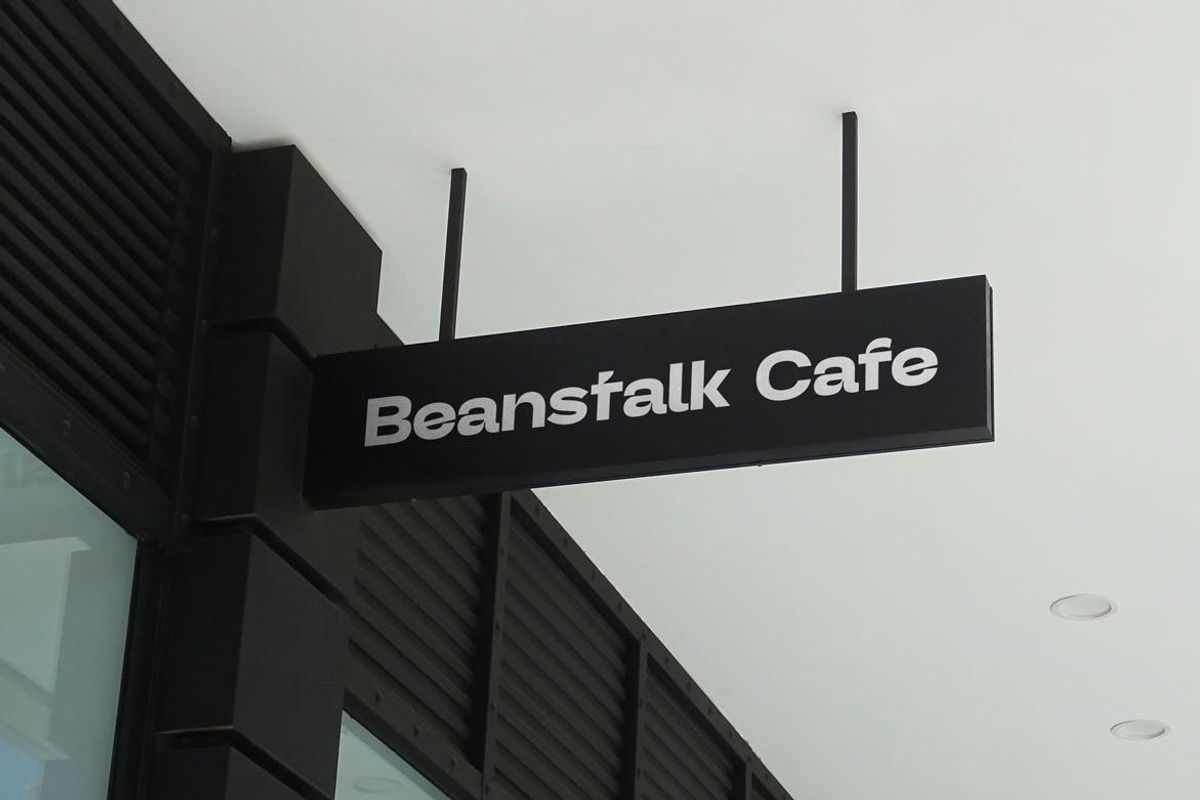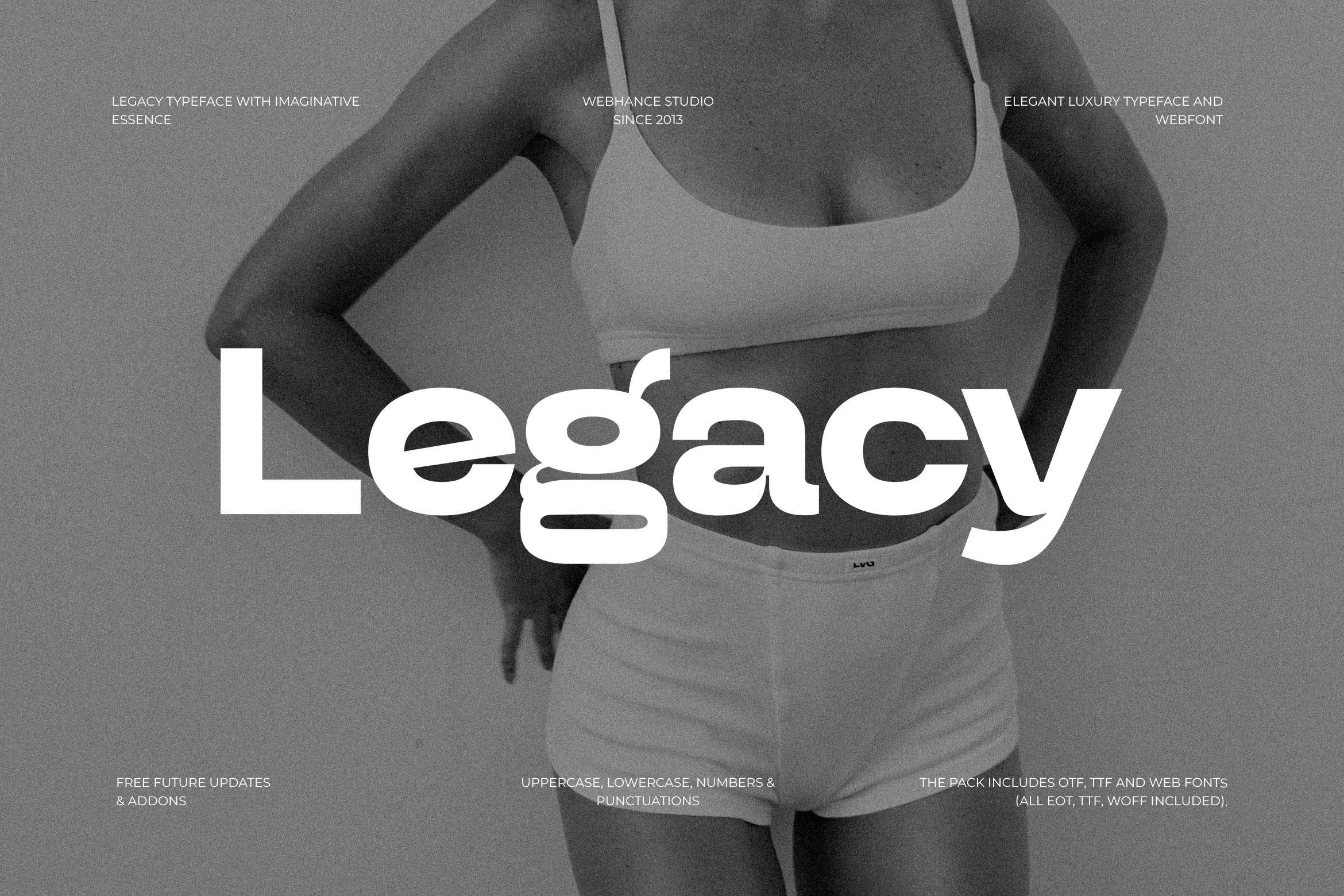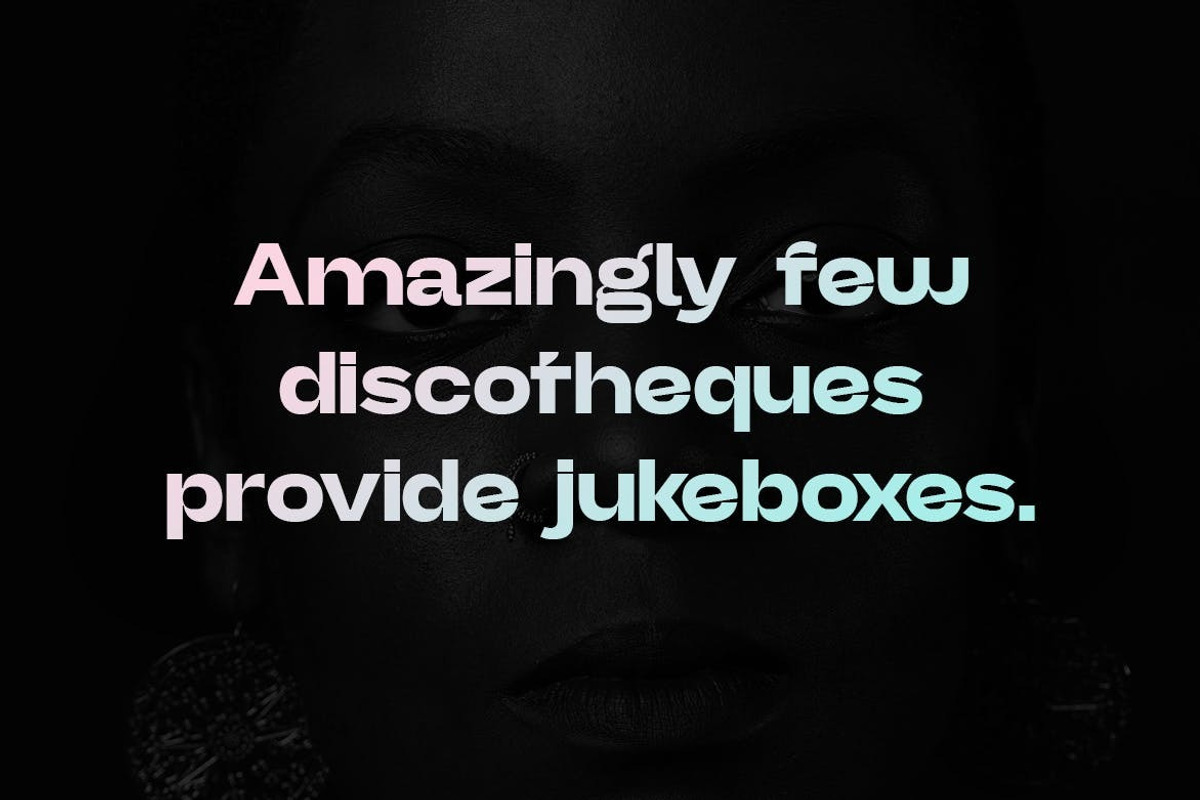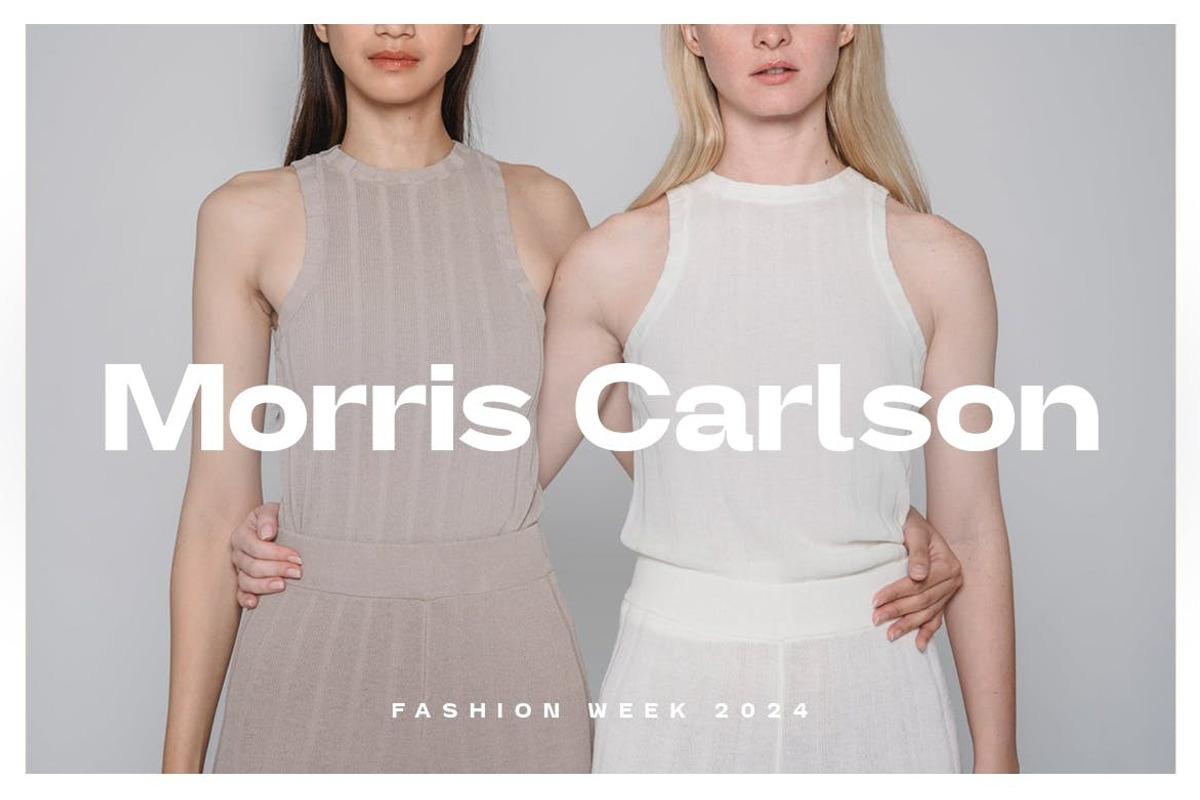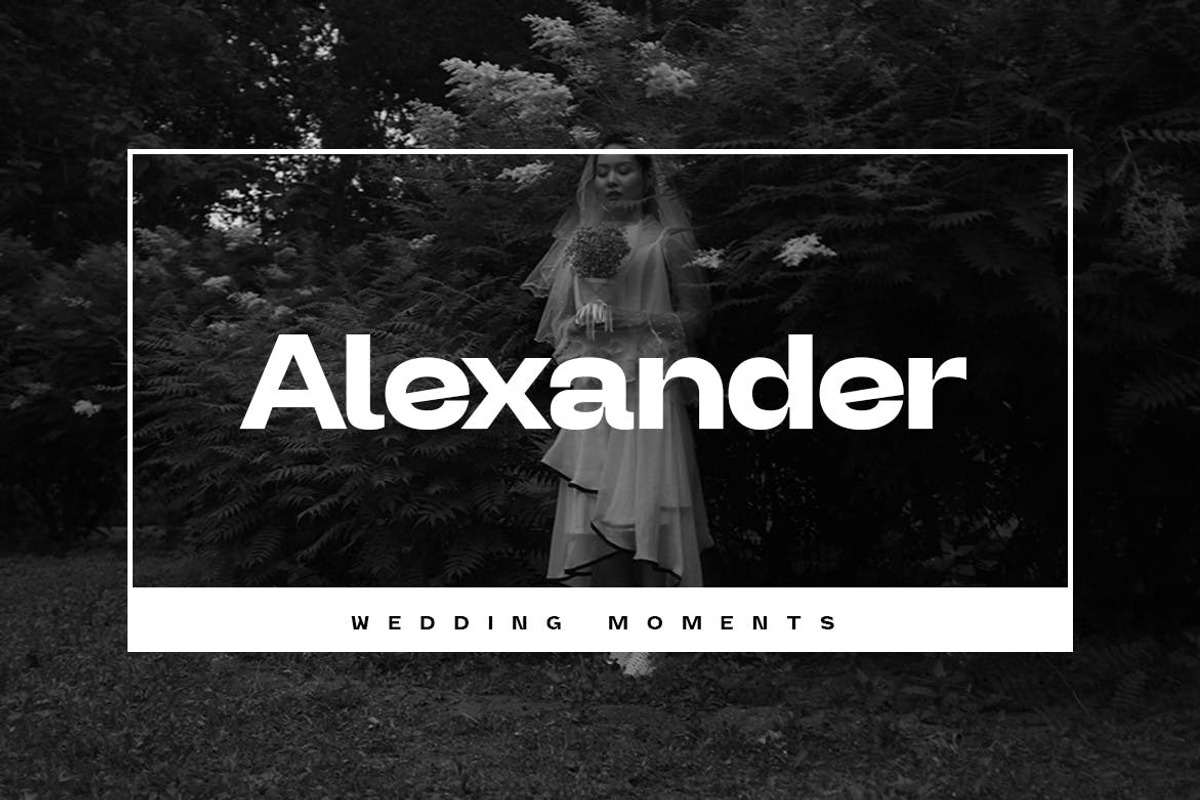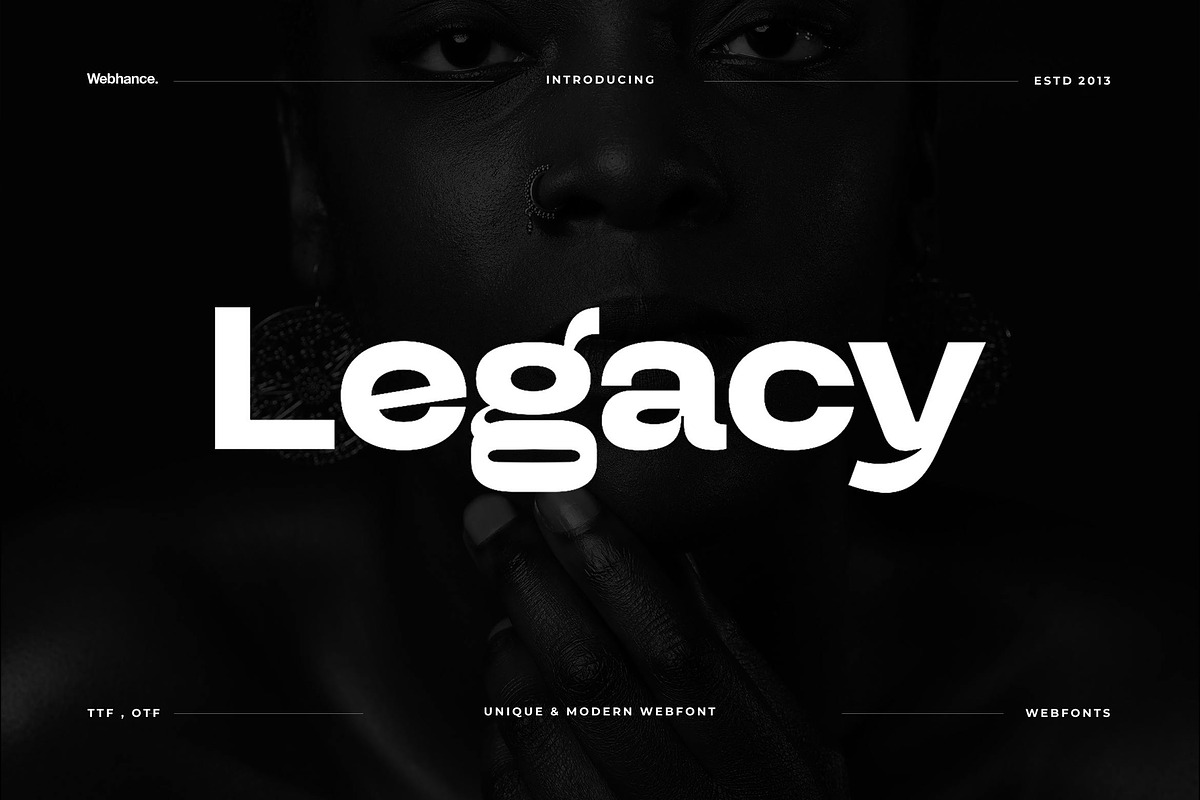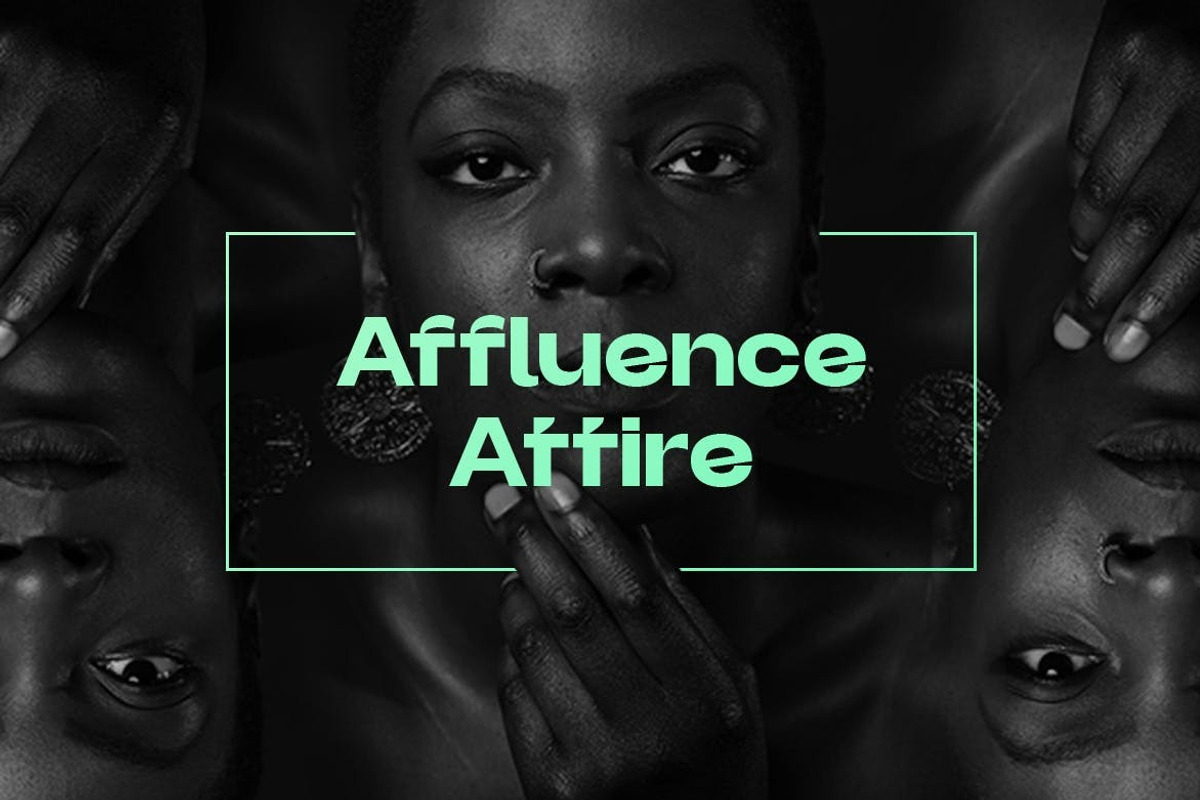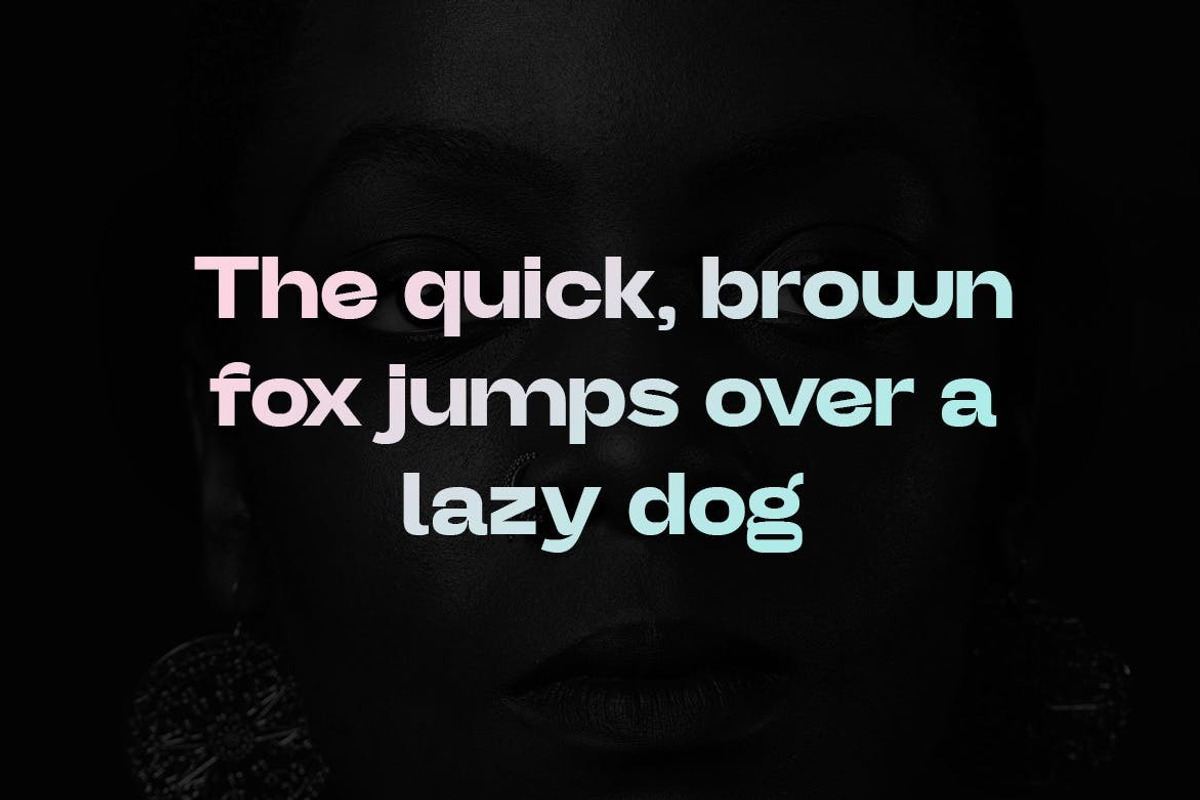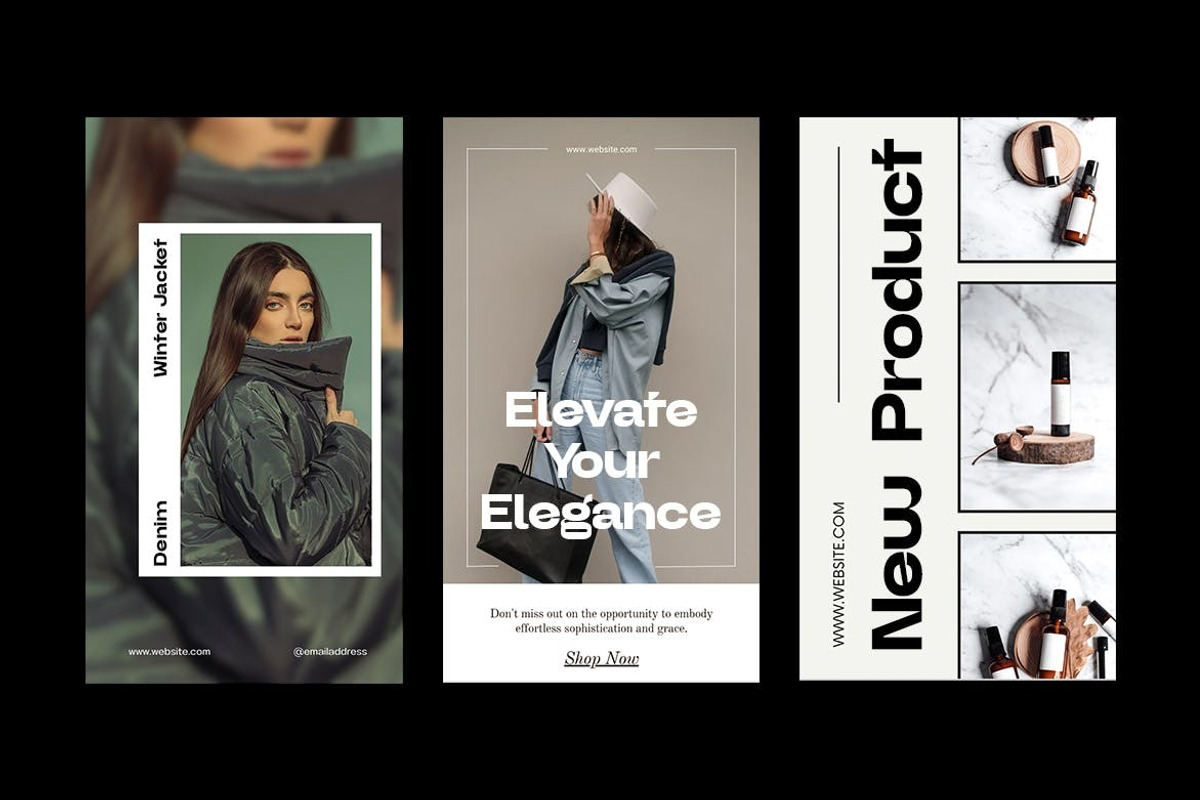
Legacy - Unique Sans-Serif font
Legacy - Minimal Sans-Serif Typeface
Experience the modern edge of design with Legacy, a unique and versatile Minimal Sans-Serif font. Ideal for web design, logos, branding, luxury, premium aesthetics, movie designs, and fashion projects, Legacy adds a touch of sophistication to every character. Its clean lines and timeless appeal effortlessly blend elegance with contemporary style, making it the perfect choice for those seeking refined design solutions.
Font Designed and Crafted by Webhance Studio.